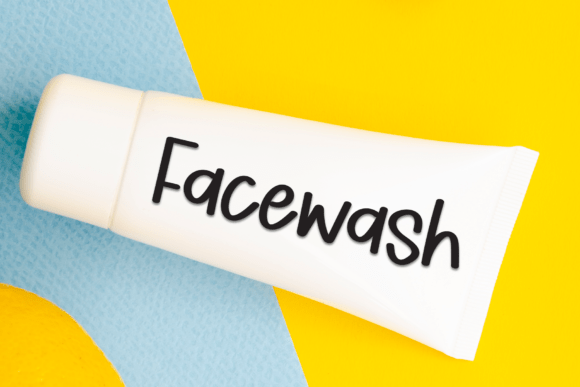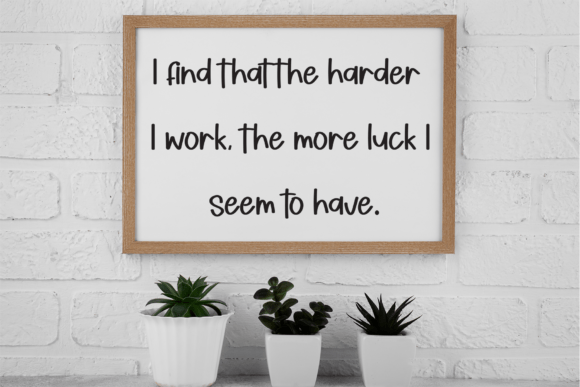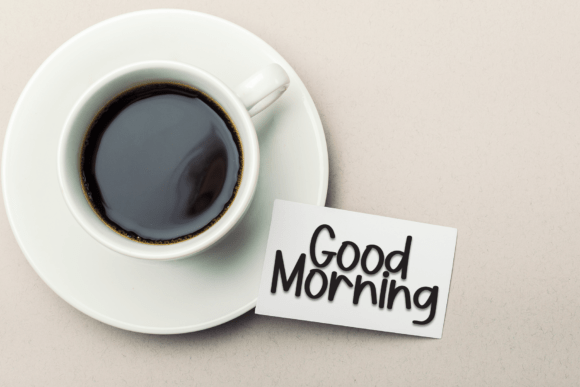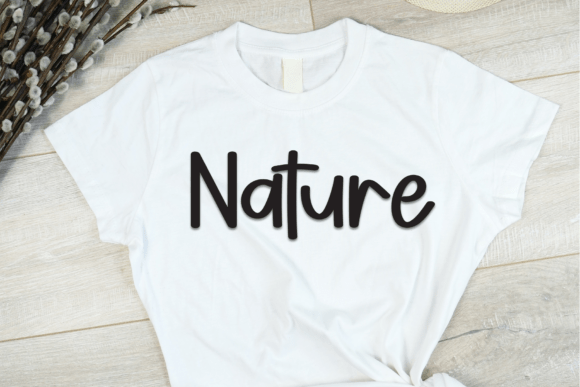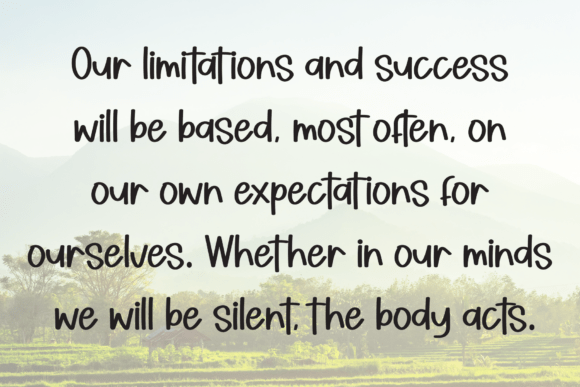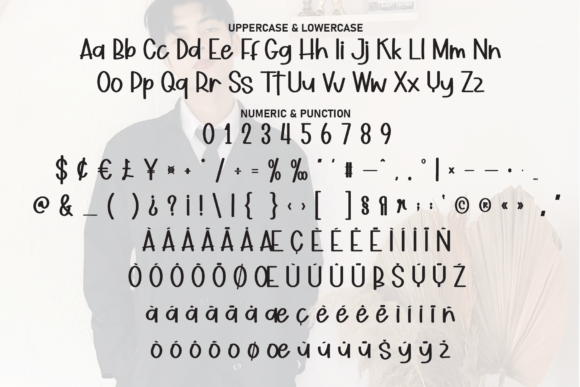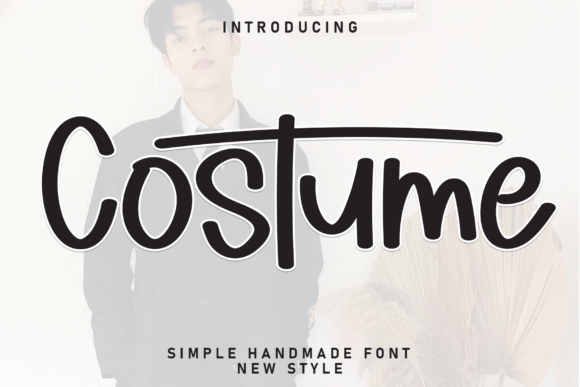
Introducing Costume Font: The Perfect Blend of Casual and Quirky
Are you a designer or crafter looking for a font that embodies a carefree and playful spirit? Look no further than Costume Font, a handmade font that combines clean lines with a quirky personality. In this article, we’ll dive into the features and benefits of Costume Font, and explore how it can elevate your lifestyle designs, logos, social media posts, and fashion branding.
What is Costume Font?
Costume Font is a unique and charming font that is perfect for designers and crafters who want to add a touch of whimsy to their work. With its smooth curves and playful ligatures, Costume Font is ideal for creating eye-catching designs that stand out from the crowd. Whether you’re working on a lifestyle blog, a fashion brand, or a social media campaign, Costume Font is the perfect choice.
Key Features of Costume Font
- Clean Lines: Costume Font features clean and simple lines that give it a modern and fresh feel.
- Quirky Personality: The font’s quirky personality shines through in its playful ligatures and smooth curves.
- Handmade: Costume Font is a handmade font, giving it a unique and personal touch.
- Versatile: The font is versatile and can be used for a wide range of design projects, from lifestyle designs to fashion branding.
Benefits of Using Costume Font
So, why should you choose Costume Font for your design projects? Here are just a few benefits of using this amazing font:
- Adds a Touch of Whimsy: Costume Font adds a touch of whimsy and playfulness to your designs, making them stand out from the crowd.
- Perfect for Lifestyle Designs: The font is ideal for lifestyle designs, such as blog posts, social media graphics, and branding materials.
- Great for Fashion Branding: Costume Font is also perfect for fashion branding, adding a touch of elegance and sophistication to your designs.
- Easy to Read: The font is easy to read, making it perfect for body text and headlines.
How to Use Costume Font in Your Designs
Using Costume Font in your designs is easy. Here are a few tips to get you started:
- Pair it with Bold Colors: Pair Costume Font with bold colors to create eye-catching designs that pop.
- Use it for Headlines: Use Costume Font for headlines and titles to add a touch of whimsy and playfulness.
- Mix it with Other Fonts: Mix Costume Font with other fonts to create a unique and interesting design.
In conclusion, Costume Font is a unique and charming font that is perfect for designers and crafters who want to add a touch of whimsy to their work. With its clean lines, quirky personality, and handmade feel, Costume Font is ideal for lifestyle designs, logos, social media posts, and fashion branding. So why not give it a try and see how it can elevate your designs?
Costume Font is a casual and friendly font that is sure to become a favorite in your design arsenal. Its smooth curves and playful ligatures make it a great choice for anyone looking to add a touch of whimsy to their designs. So what are you waiting for? Give Costume Font a try today and see the difference it can make in your designs!